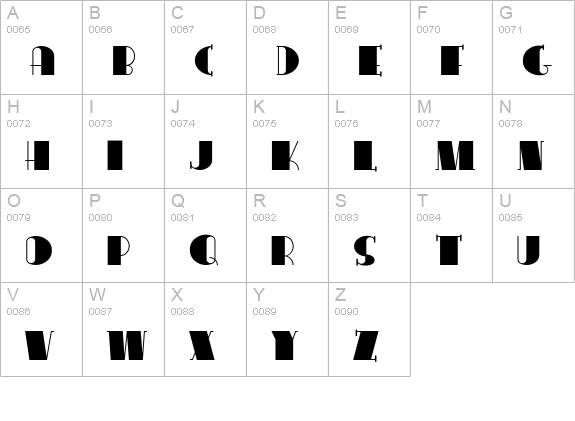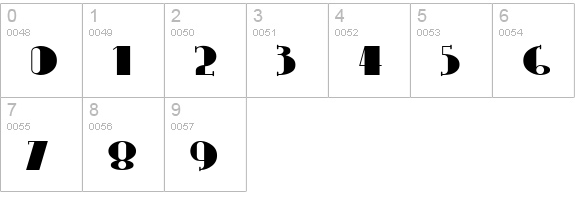
CongaLine font is a vibrant and playful typeface that exudes energy and movement, making it perfect for designs that need a touch of fun and excitement. Its flowing lines and dynamic curves create a sense of rhythm and celebration, reminiscent of a lively conga line at a festive party. What's even better is that CongaLine font is completely free to download at FontsMarket.com. This means you can easily add this eye-catching font to your projects without any cost, making it a versatile and budget-friendly option for both personal and commercial use. Whether you're designing invitations, posters, flyers, or social media graphics, CongaLine font will inject a dose of joy and personality into your creations. So go ahead, download this free font today and let the party begin!